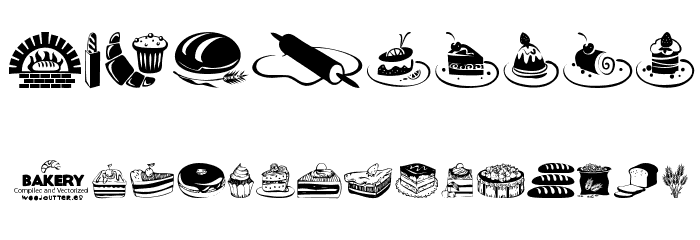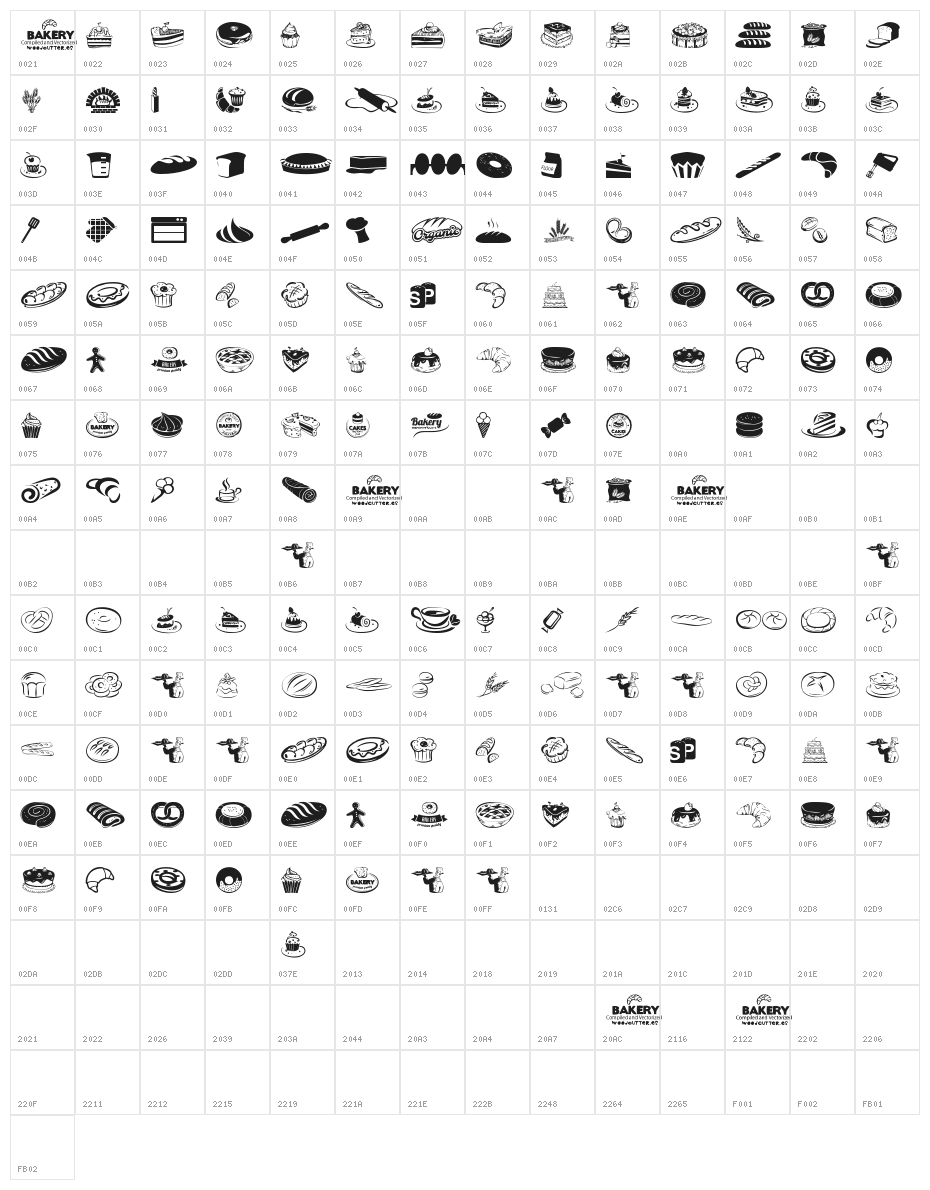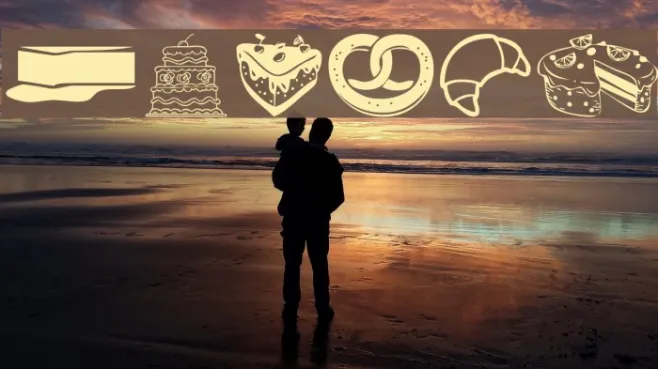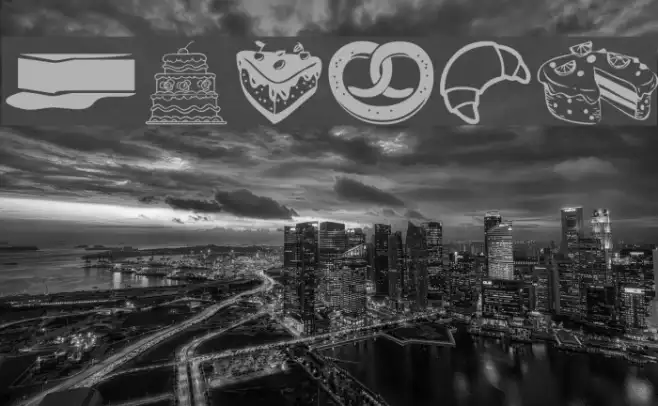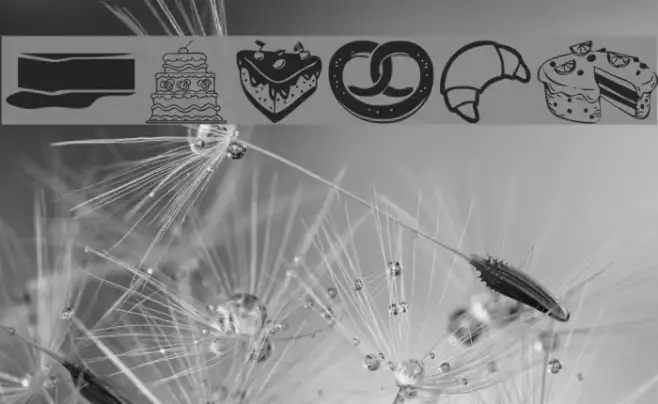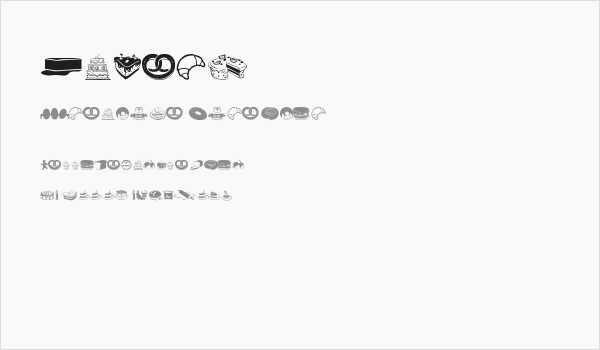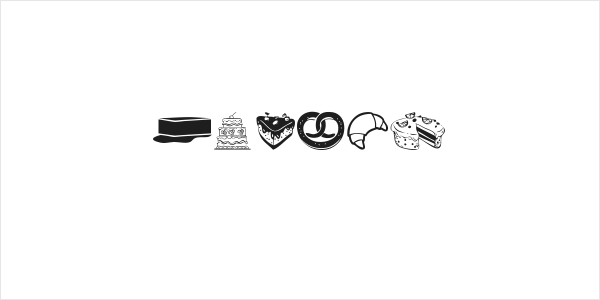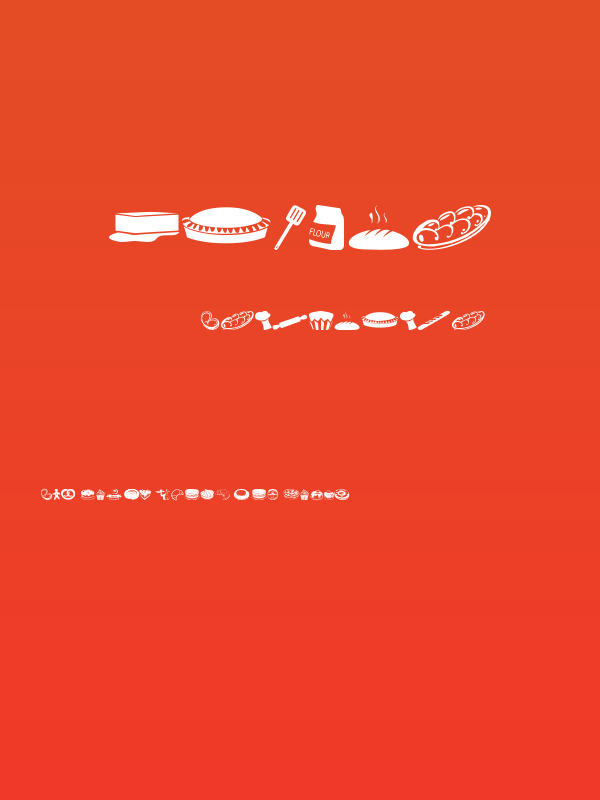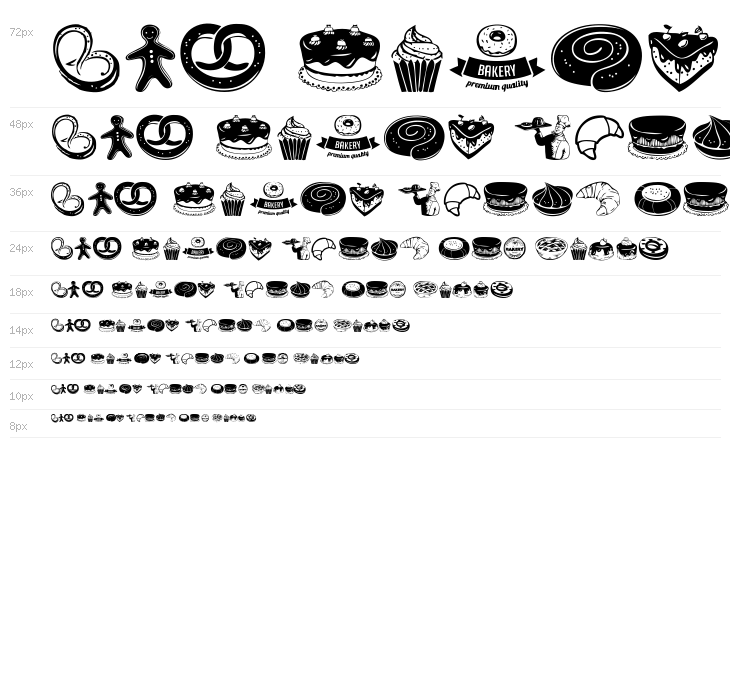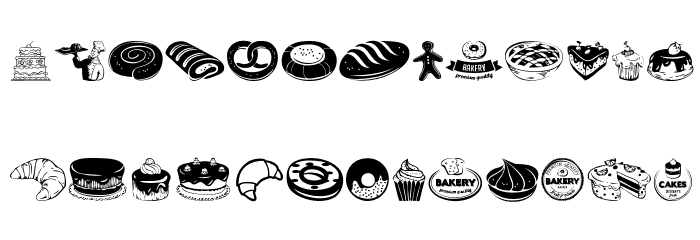
Bakery Font
Bakery Description
A decorative dingbat set featuring a variety of bakery-themed icons, including cakes, breads, pastries, utensils, and bakery labels, all rendered in a bold, high-contrast black and white style. The icons are playful and detailed, suitable for thematic design projects.
| Overall Style | Decorative, Playful, Thematic |
| Use Case | Logos, Packaging, Posters, Themed graphics |
| Proposed Projects | Bakery branding, menu design, packaging, posters, social media graphics, event invitations. |